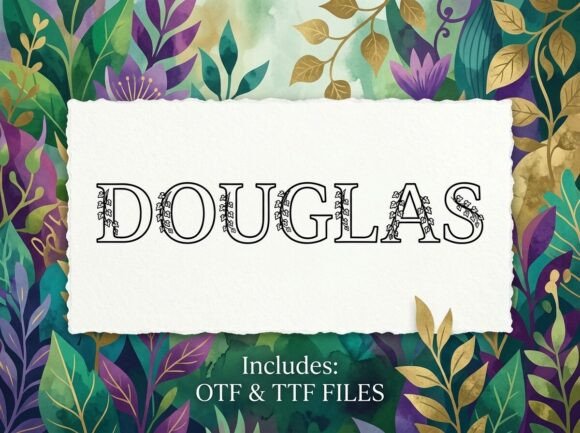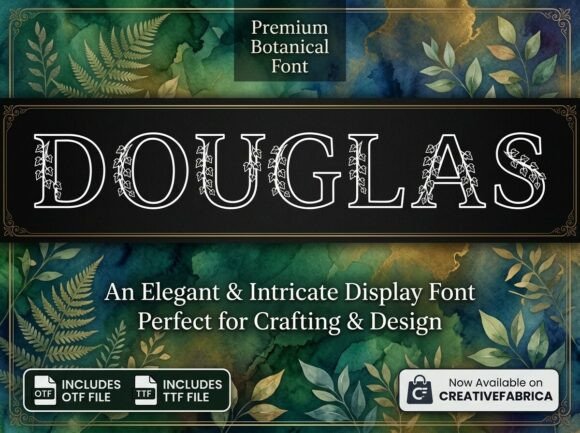
The Ultimate Display Font: Unleashing the Power of Douglas Font
I’ll never forget the moment I stumbled upon a font that completely transformed my design project. I was working on a branding campaign for a luxury client, and I was struggling to find the perfect font that would convey their high-end message. That’s when I discovered Douglas Font, a stunning decorative display font that instantly caught my attention. In this article, I’ll share my experience with Douglas Font, its features, and how to make the most of it in your designs.
An Honest Review of Douglas Font
- ✨ Unique artistic elements that add a touch of sophistication to any design
- ✅ Strong visual personality that commands attention
- 💼 Versatile enough for bold headlines, artistic logos, and creative packaging
- 👍 Maintains a professional and polished finish
⚠️ One thing to note is that Douglas Font is an ALL-CAPS (Uppercase Only) display typeface, which means it doesn’t include lowercase letters. This might be a limitation for some designers, but it’s actually a deliberate design choice to focus on high-impact headlines, logos, and decorative initials.
🤔 Another thing to consider is that the font might not be suitable for body text or long paragraphs, as its unique artistic elements might be overwhelming.
The Backstory of Douglas Font
Douglas Font was designed by a team of creatives who wanted to create a font that would stand out in a crowded design landscape. Inspired by the world of art and luxury, they crafted a font that would convey a sense of sophistication and elegance. The result is a font that is both visually striking and versatile, perfect for designers who want to make a statement.
Q: Is Douglas Font suitable for body text?
A: While Douglas Font is a beautiful font, it’s primarily designed for display purposes, such as headlines, logos, and decorative initials. It might not be the best choice for body text or long paragraphs.